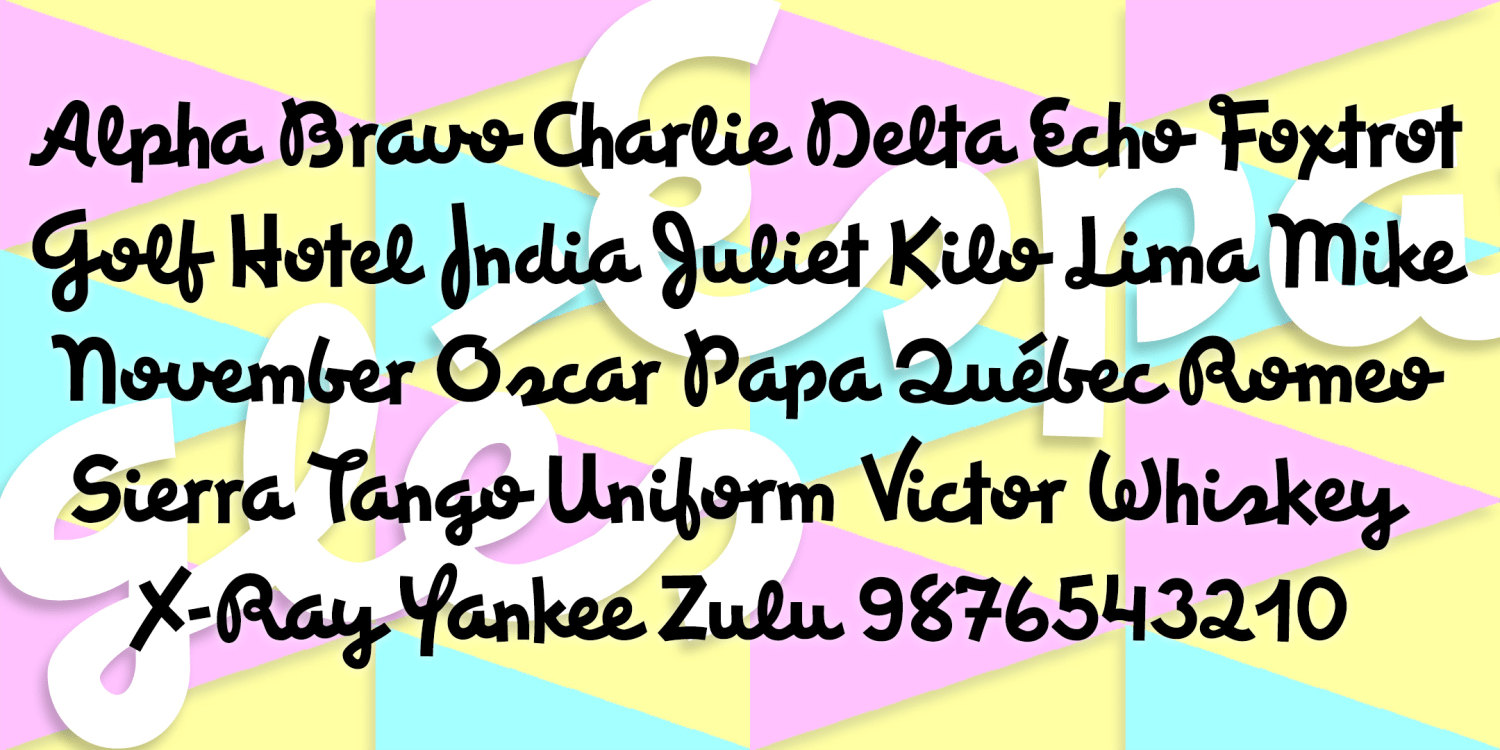
Espangles
ESPANGLES is a stylish cursive font that makes a bold statement. It was inspired by the logo of the great, ubiquitous Spanish department store, El Corte Inglés, in the tradition of other great store logos (i. e. Harrods, Marshall Field, Neiman-Marcus) that suggest fashion and flair.
Version 2.0 features improved linking for a more realistic script, making use of the discretionary ligatures feature of Opentype. There are also some alternate characters and an expanded character set.
The Espangles font family includes 413 glyphs.